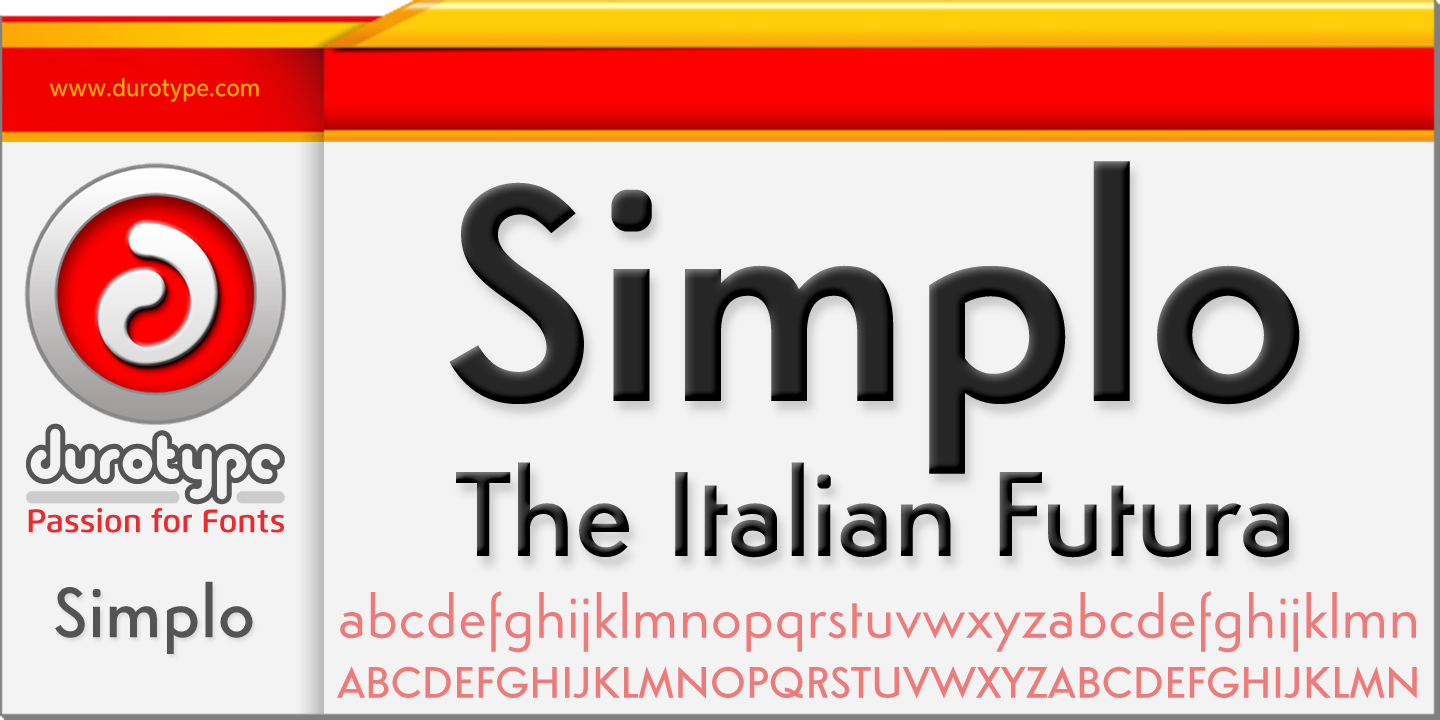
Simplo Font is perfect for modern corporate branding, minimalist website design, clean logo creation, tech company presentations, mobile app interfaces, business cards, annual reports, editorial layouts, signage systems, and contemporary advertising campaigns. This versatile sans-serif typeface excels in both digital and print applications where clarity and modern aesthetics are essential.
What makes Simplo Font exciting is its perfect embodiment of contemporary minimalist design principles combined with exceptional functionality. The font features clean geometric construction with carefully refined letterforms that provide outstanding legibility across all sizes and media. Its balanced proportions and neutral character make it incredibly versatile while maintaining a distinctive modern personality. The typeface's streamlined appearance reduces visual clutter while enhancing readability, making it ideal for brands seeking to communicate efficiency, innovation, and professional credibility.
The Simplo Font family includes multiple weights ranging from thin to black, each available in regular and italic styles. This comprehensive font family offers extensive typographic flexibility with light, regular, medium, semi-bold, bold, and extra-bold weights. Each weight maintains consistent character spacing and proportions, ensuring perfect visual harmony across different applications and creating seamless typographic hierarchies.